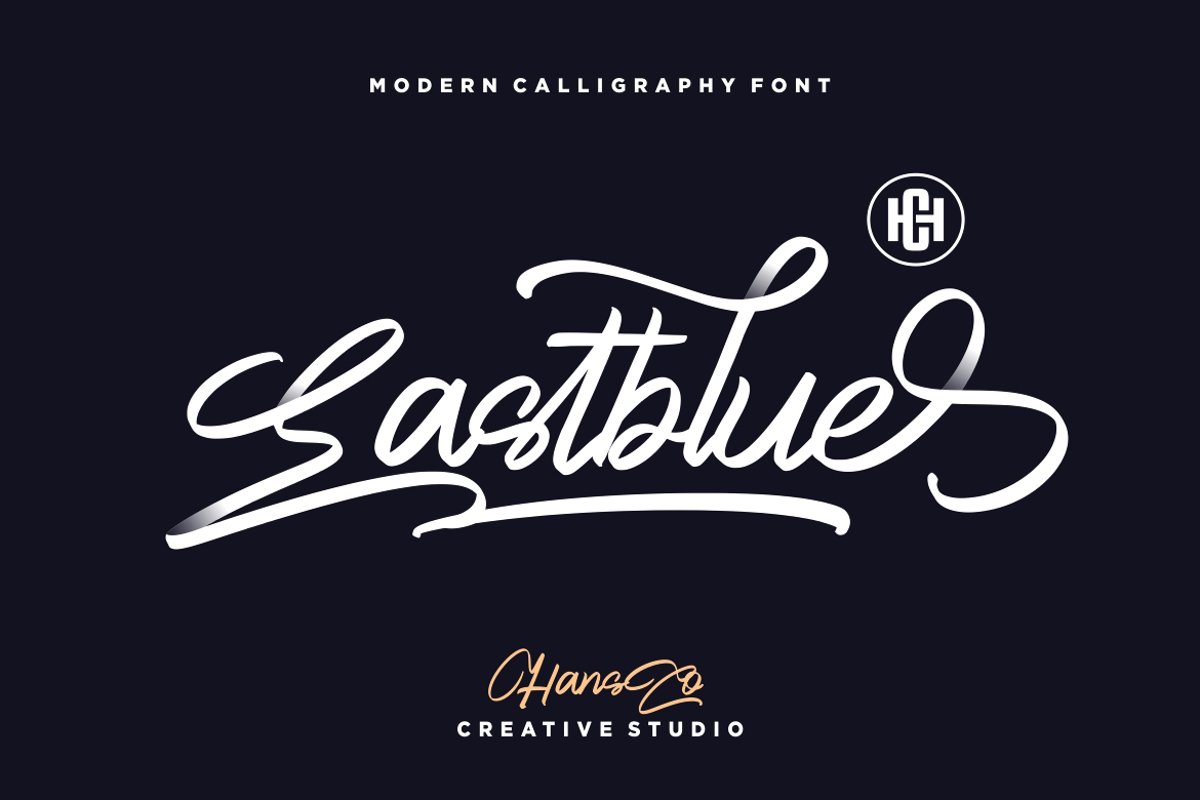
Eastblue Font
Eastblue is a modern stylish calligraphy font with many alternative styles, swashes that perfect for you who needs a typeface for especially logotype, apparel, invitation, branding, packaging, advertising etc.